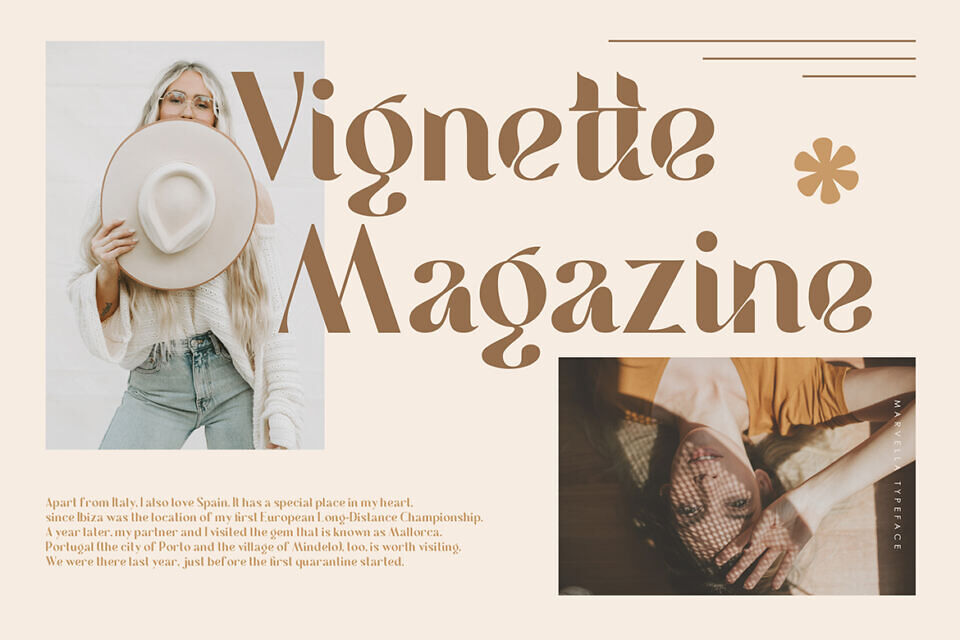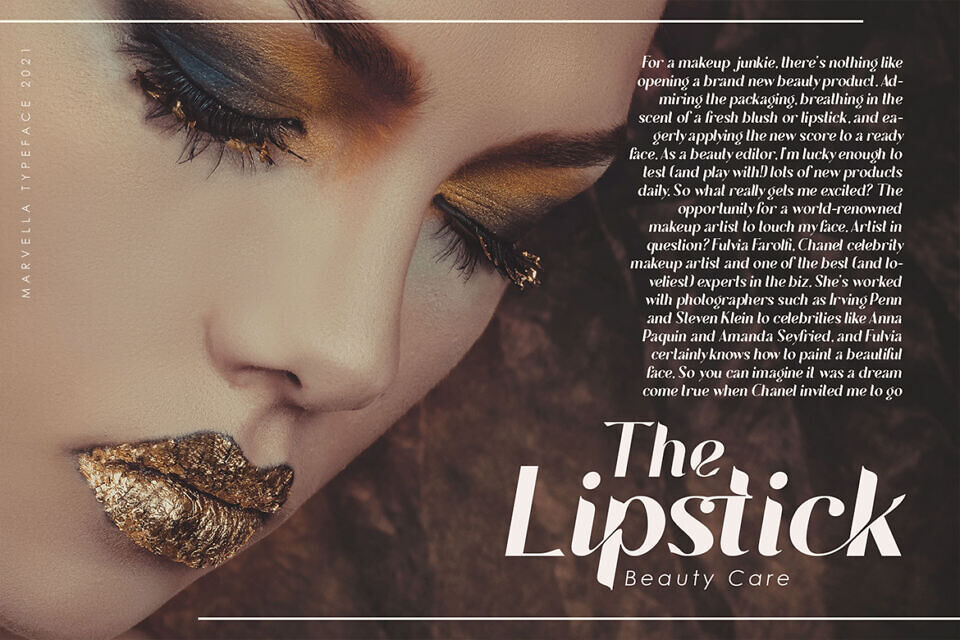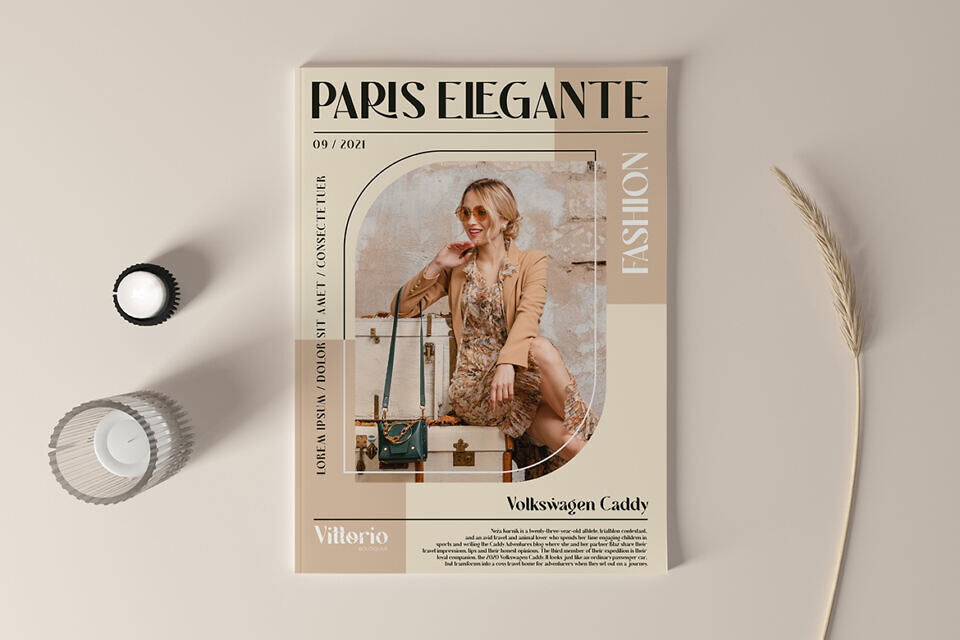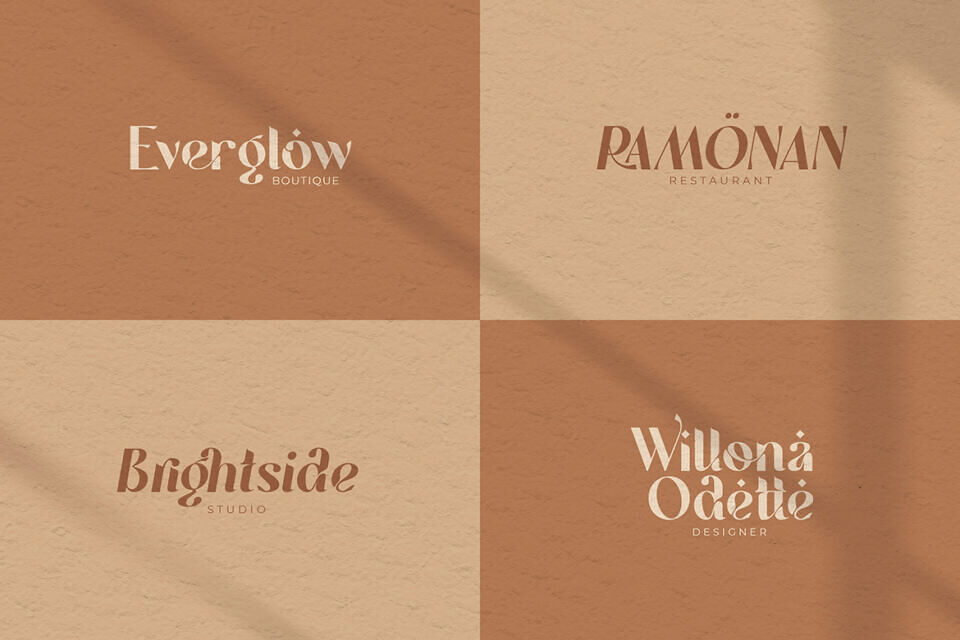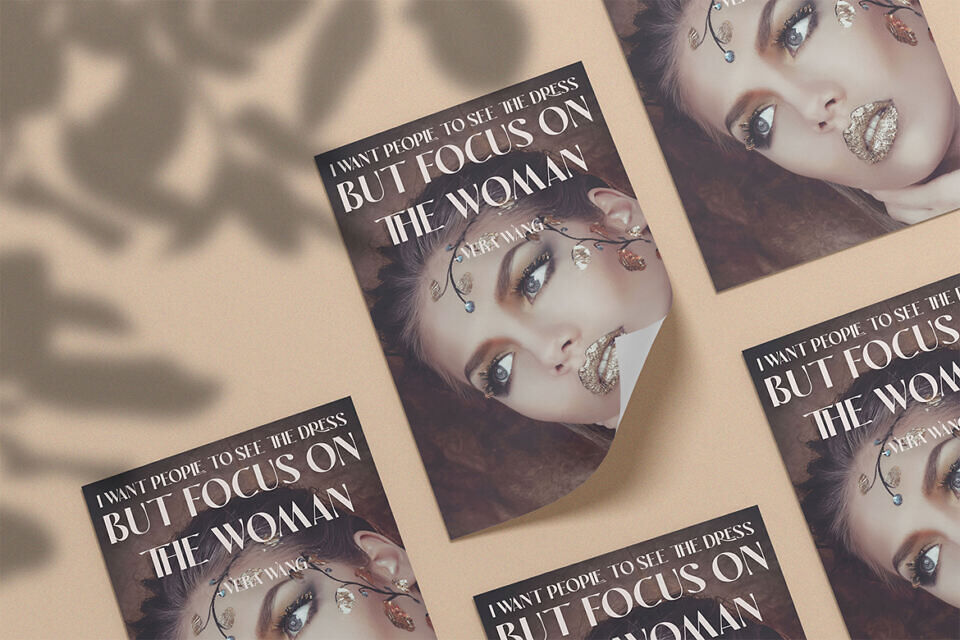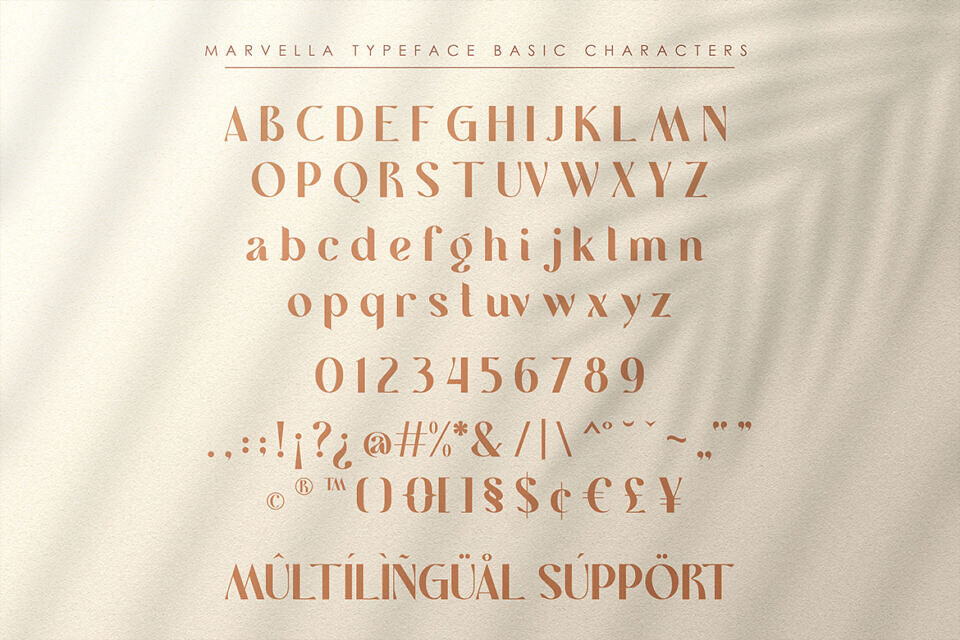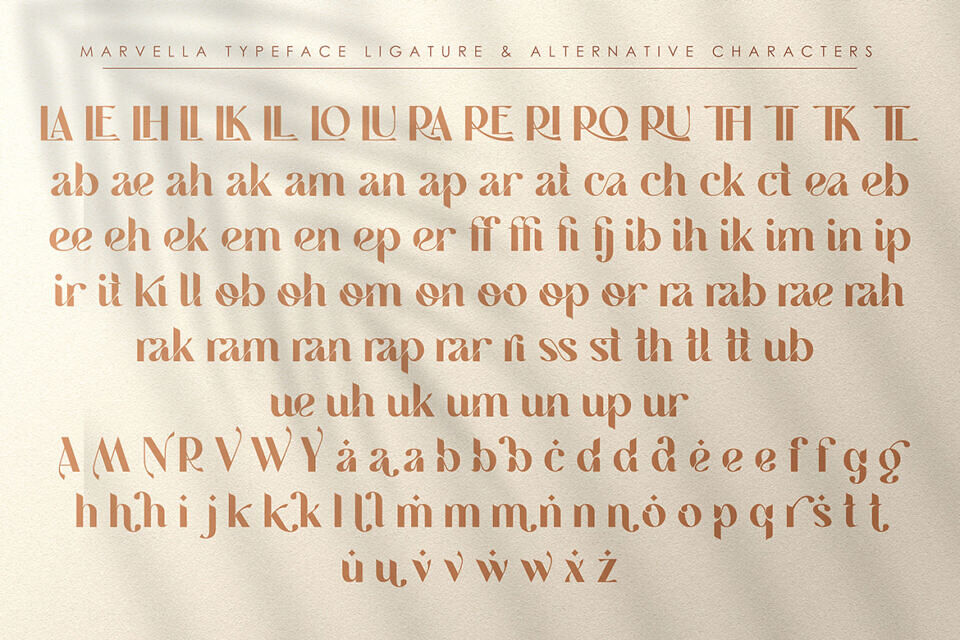
Marvella Font
Introducing the new Marvella Modern & Classic Ligature Typeface! Marvella is a luxury and glamour serif typeface. Marvella come with 2 versions, regular & Italic. This font is both modern and nostalgic and works great for logos, magazine, social media.
Already matched up and ready to be used together for your next design! For those of you who are needing a touch of elegant, stylish, classy, chic and modernity for your designs, this font was created for you!